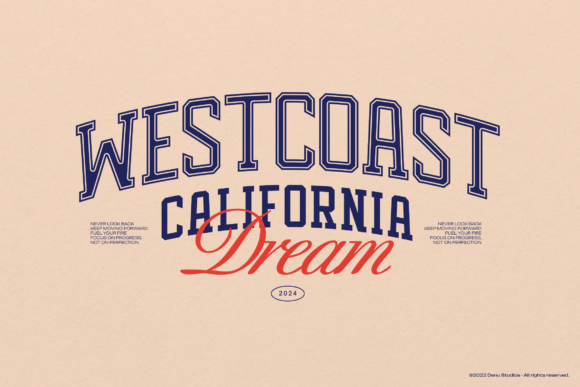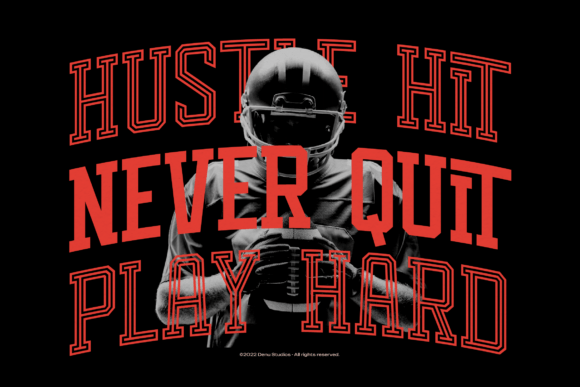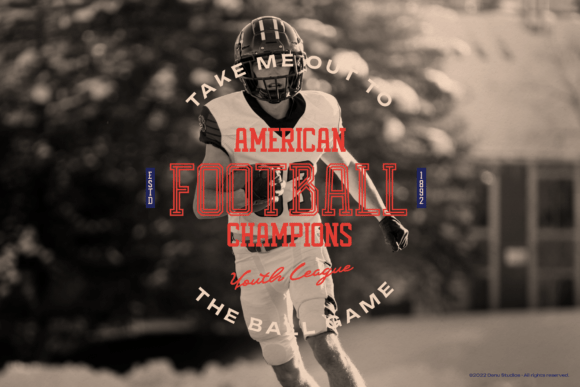
Capitan Playden Font
Capitan Playden is a strong, bold display font inspired by classic varsity and athletic lettering. With both regular and inline styles, this font delivers the perfect all-American sports vibe. Ideal for team jerseys, sports branding, game day posters, and energetic marketing, Capitan Playden commands attention with its confident, collegiate look.